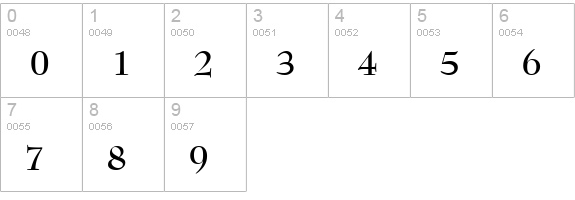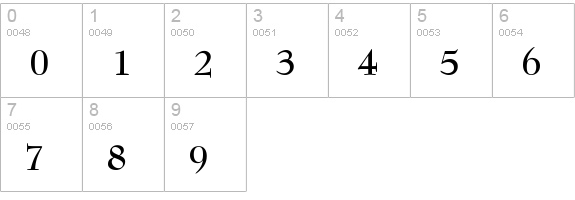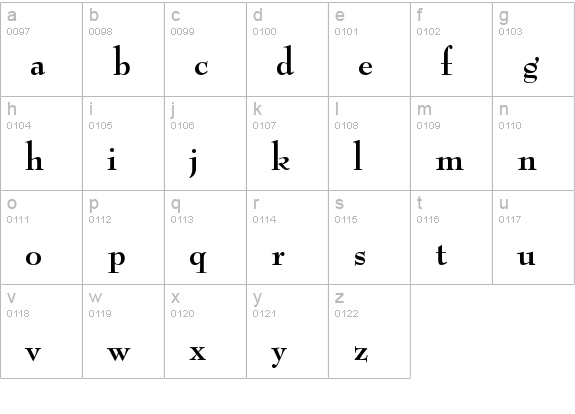
Bernadette Fed font is a charming and elegant typeface that exudes sophistication and class. Its delicate curves and graceful lines make it perfect for adding a touch of glamour to any design project. Whether you are working on invitations, branding, or editorial designs, Bernadette Fed font is sure to make a statement. What makes Bernadette Fed font even more appealing is that it is completely free to download. You can access this beautiful font at FontsMarket.com, where you can easily add it to your collection without any cost. With its timeless beauty and versatility, Bernadette Fed font is a must-have for any designer looking to elevate their work to the next level.